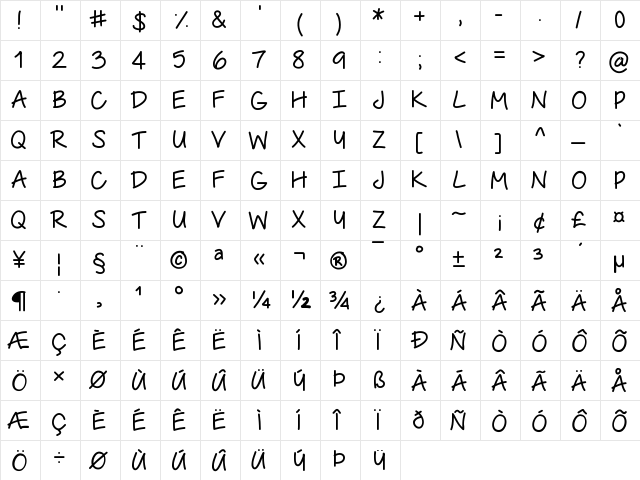
UrbanClass Medium Free Font
UrbanClass Medium
Design Context for UrbanClass
UrbanClass is a composed and adaptable typeface that performs quietly and consistently across a wide range of design contexts.
Pro Tip: Use UrbanClass in both headline and body roles to test its range before committing to a single application.